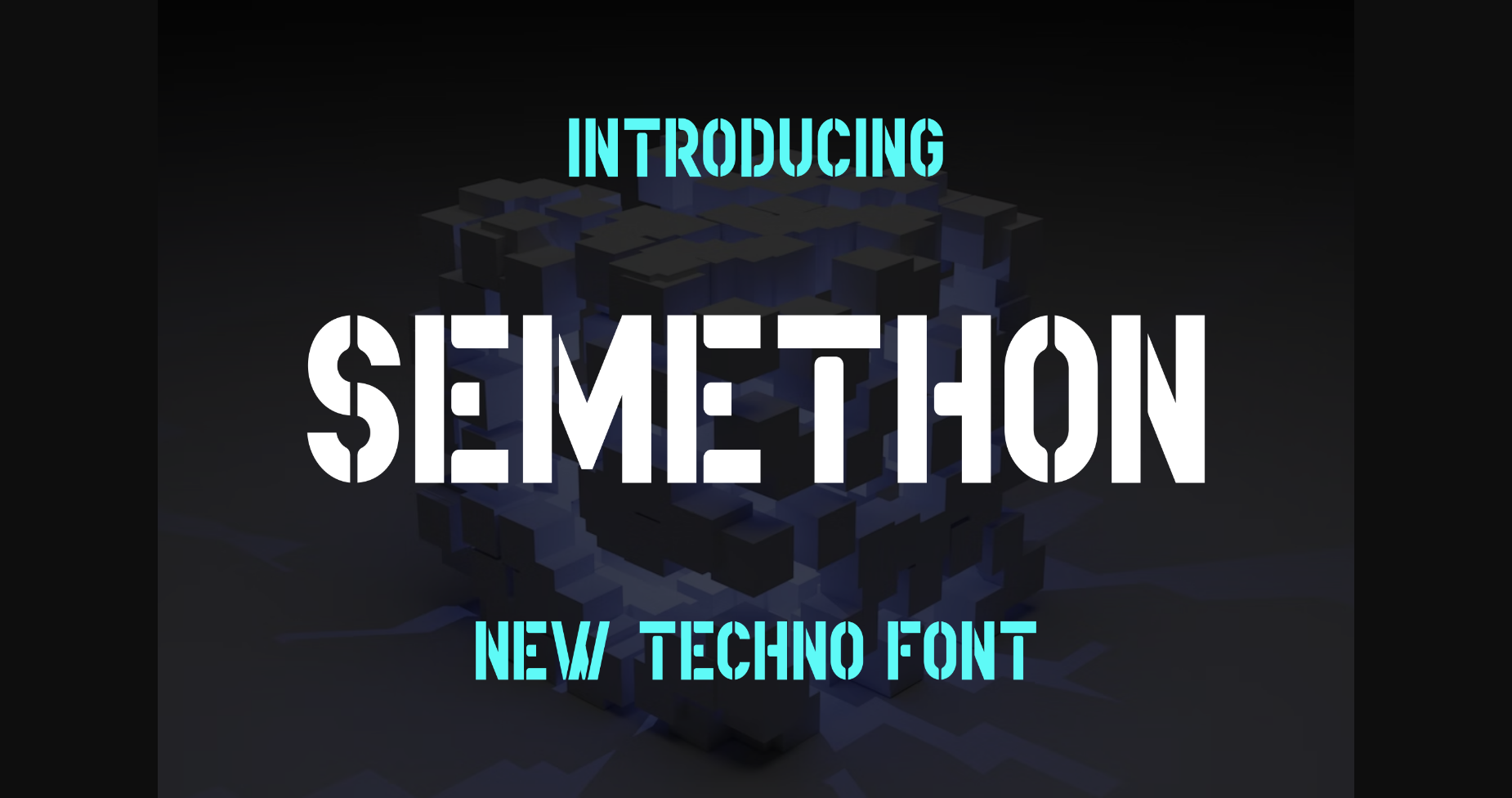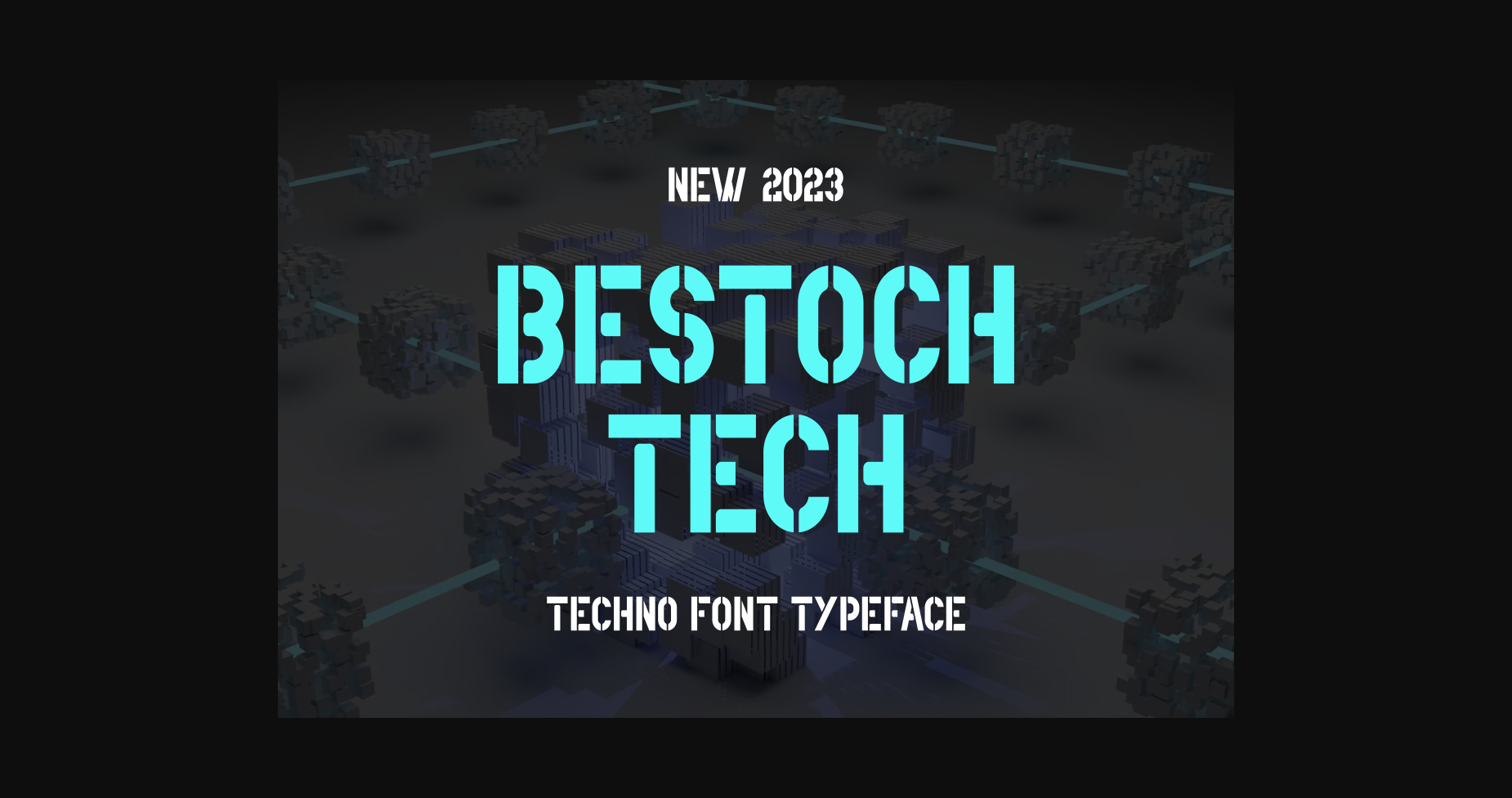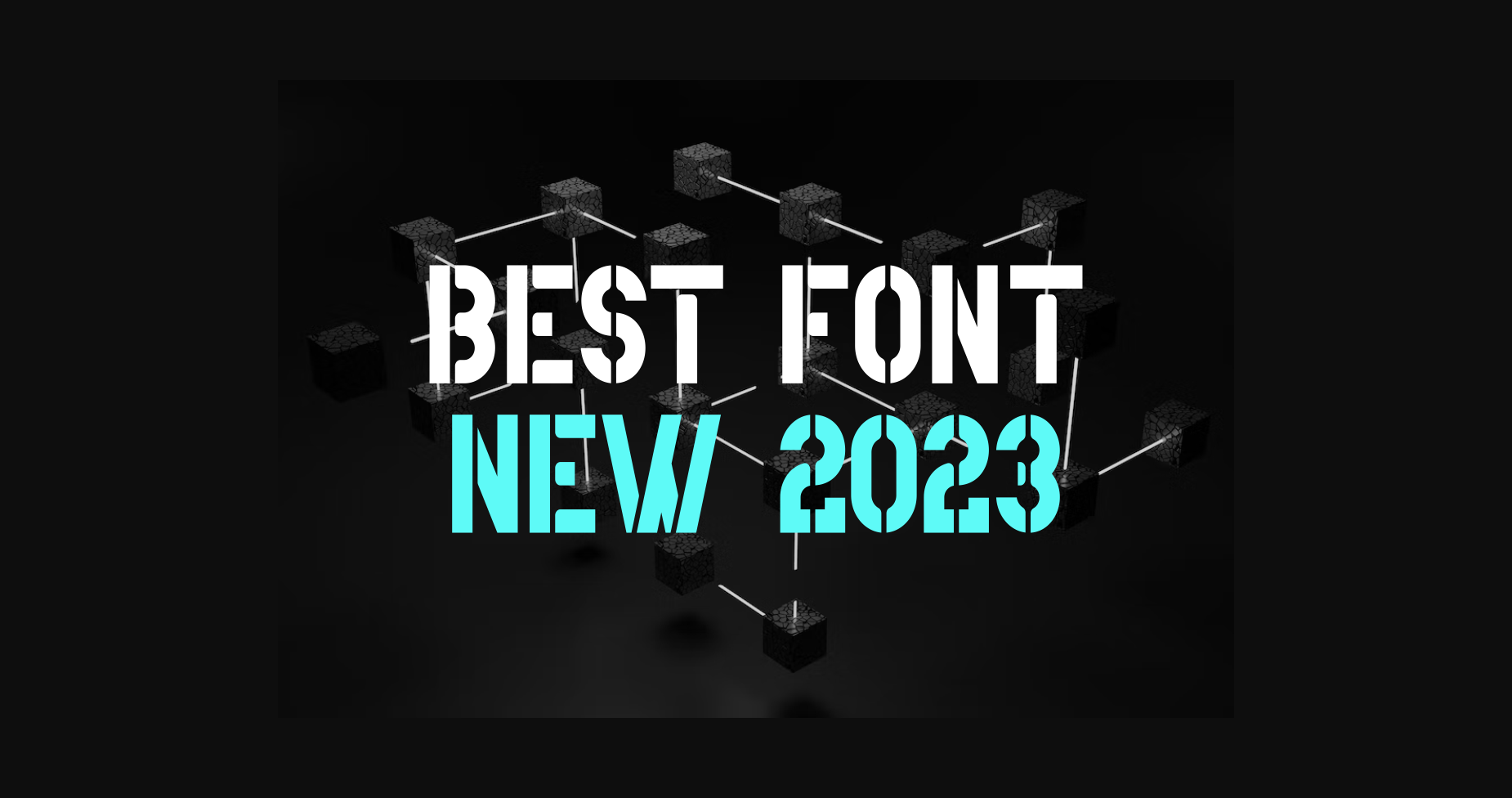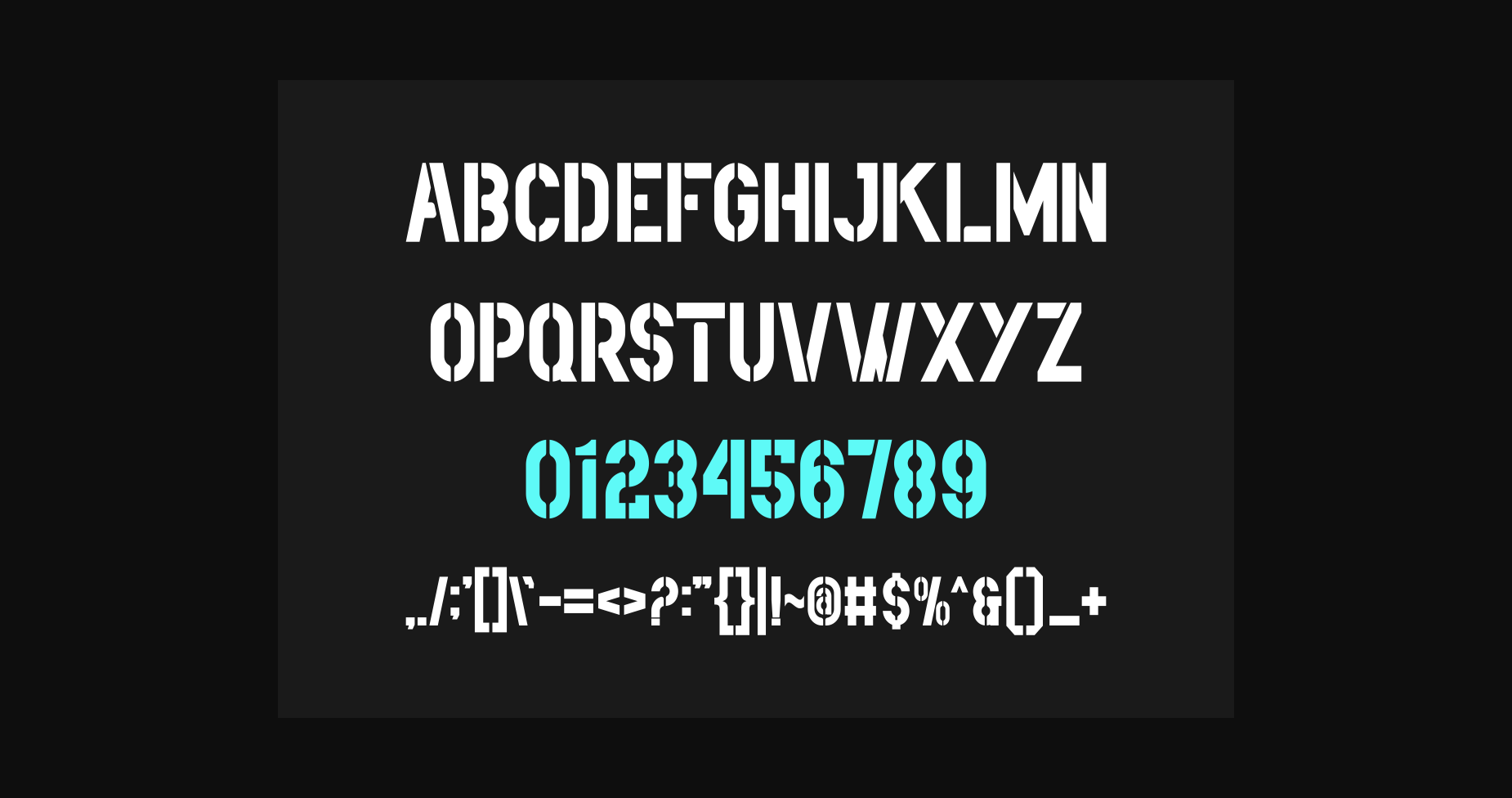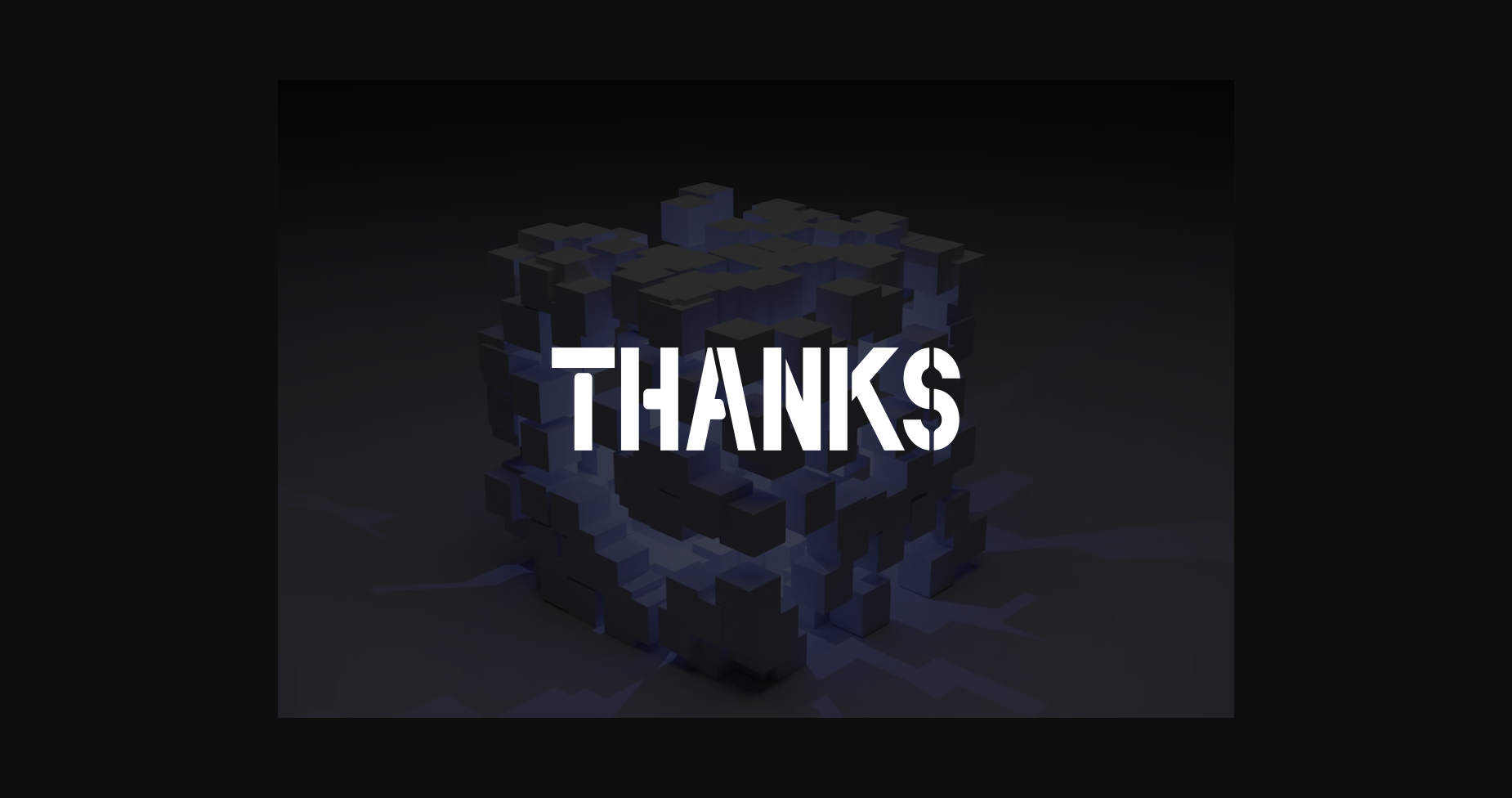
Semethon Font is a modern typeface inspired by the techno style. You can use it for logos, quotes, posters, magazines, fashion, and more. Outstanding in a wide range of contexts.